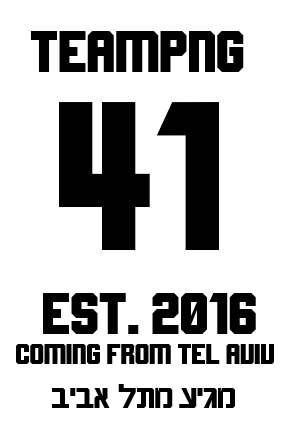
Inspired by the numbers printed on the paper in Rhythm Test from Rhythm Tengoku (Rhythm Heaven) as well as artist Ekhlom Ramid's street art lettering in Tel Aviv, Israel. The font includes Latin and Hebrew letters. I used the Star of David as the asterisk.
Update 1: Added Braille
JType Grafix Kard font sample: A jersey graphic I made for TeamPNG